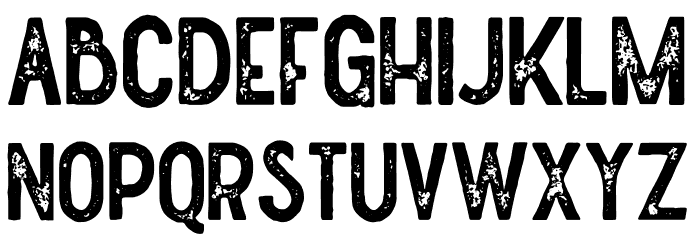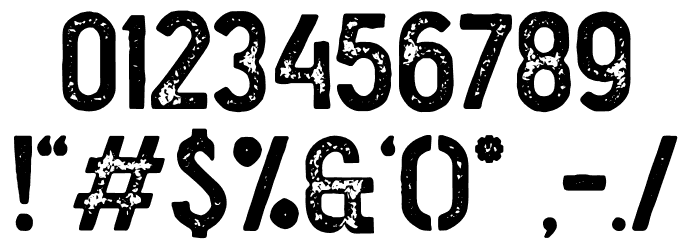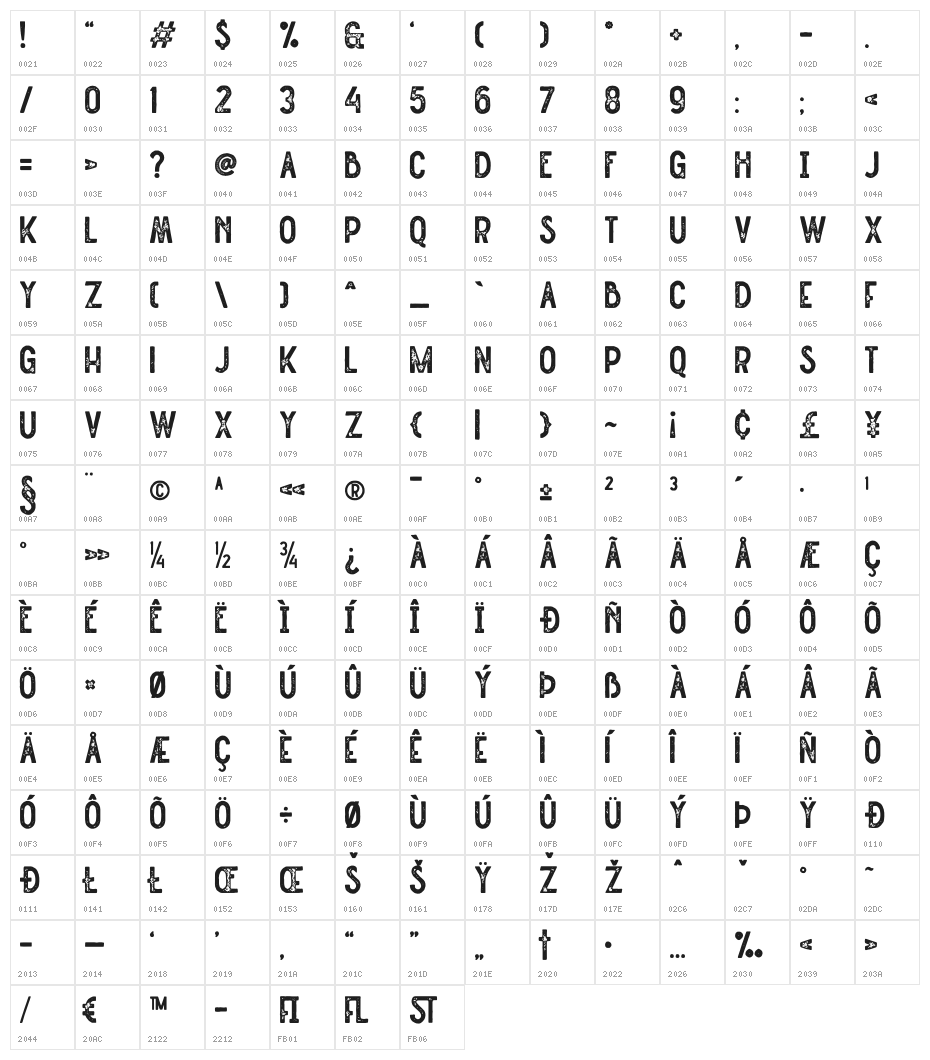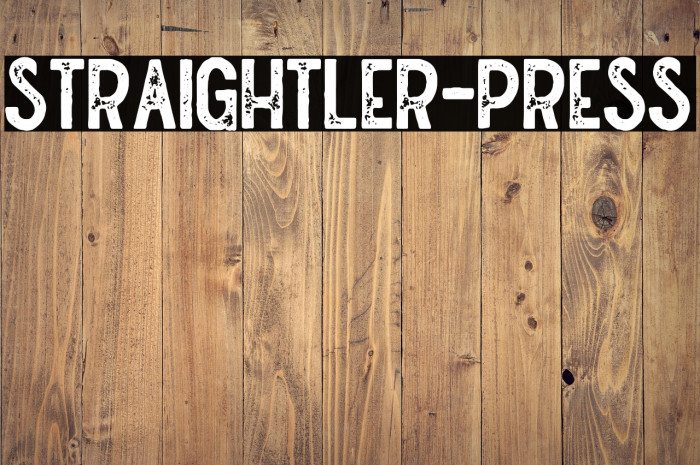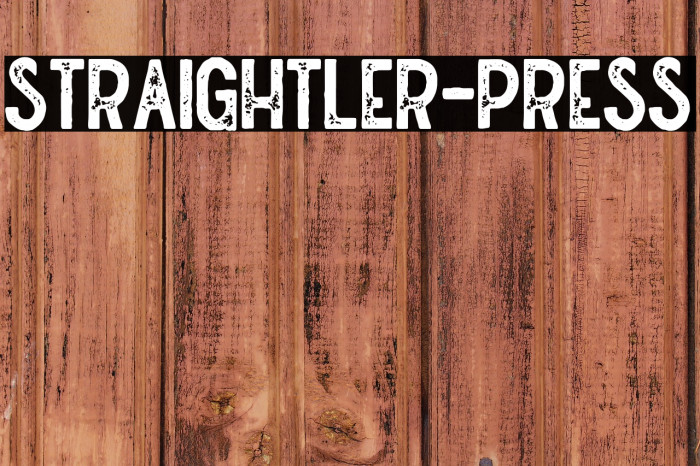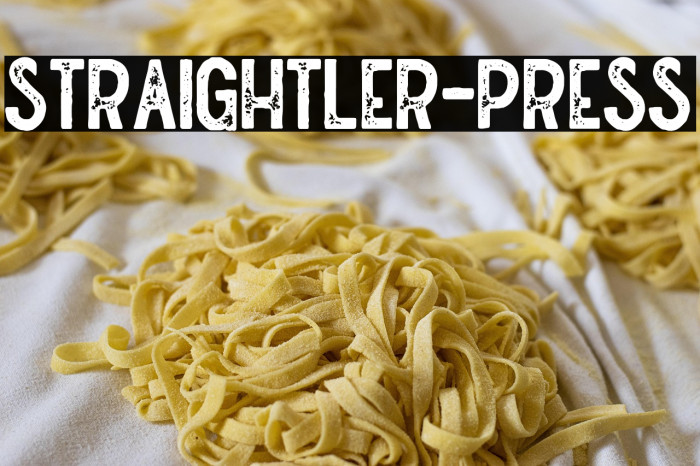
Straightler-Press Font
This font features a bold, distressed style that gives it a rugged, vintage appearance. The characters are uppercase and lowercase letters, numbers, and a variety of special symbols. Each character is designed with a textured effect, resembling worn-out or weathered surfaces, which adds a unique, gritty charm. The font's boldness is consistent across all characters, making it stand out prominently. The spacing between characters is relatively tight, enhancing its compact and impactful look. This style is reminiscent of old printing press techniques, adding a nostalgic touch to any design.
A bold, distressed font with a vintage, textured style.
- Proposed Projects: Ideal for projects requiring a vintage or rugged aesthetic, such as posters, album covers, branding for outdoor or adventure-themed products, and retro-style advertisements.
- Character Spacing: Tight
- Overall Style: Vintage